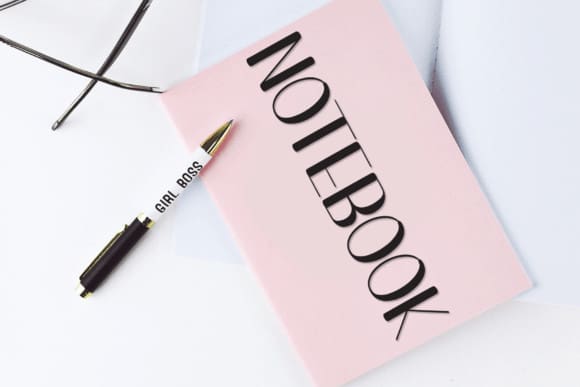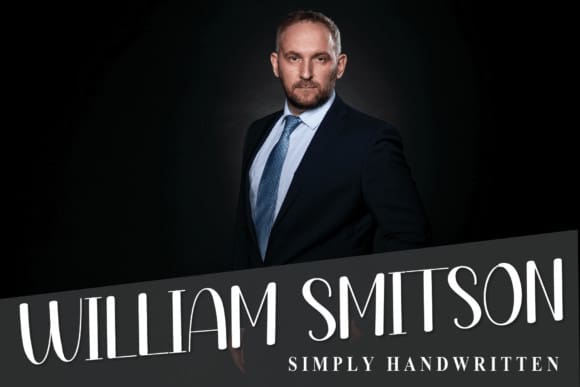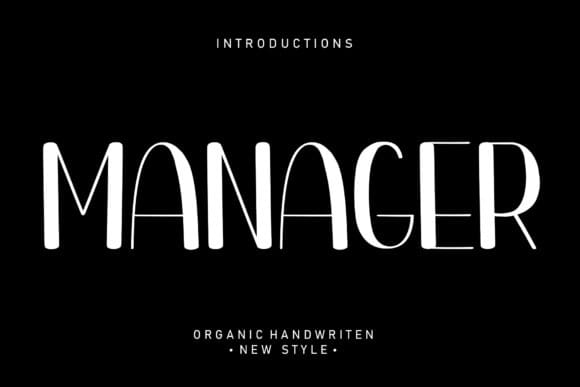
Manager Playful Font
Manager Playful Font is a cool and casual handwritten typeface with characters that dance along the baseline. It will add a unique spark to any design project that you wish to create!